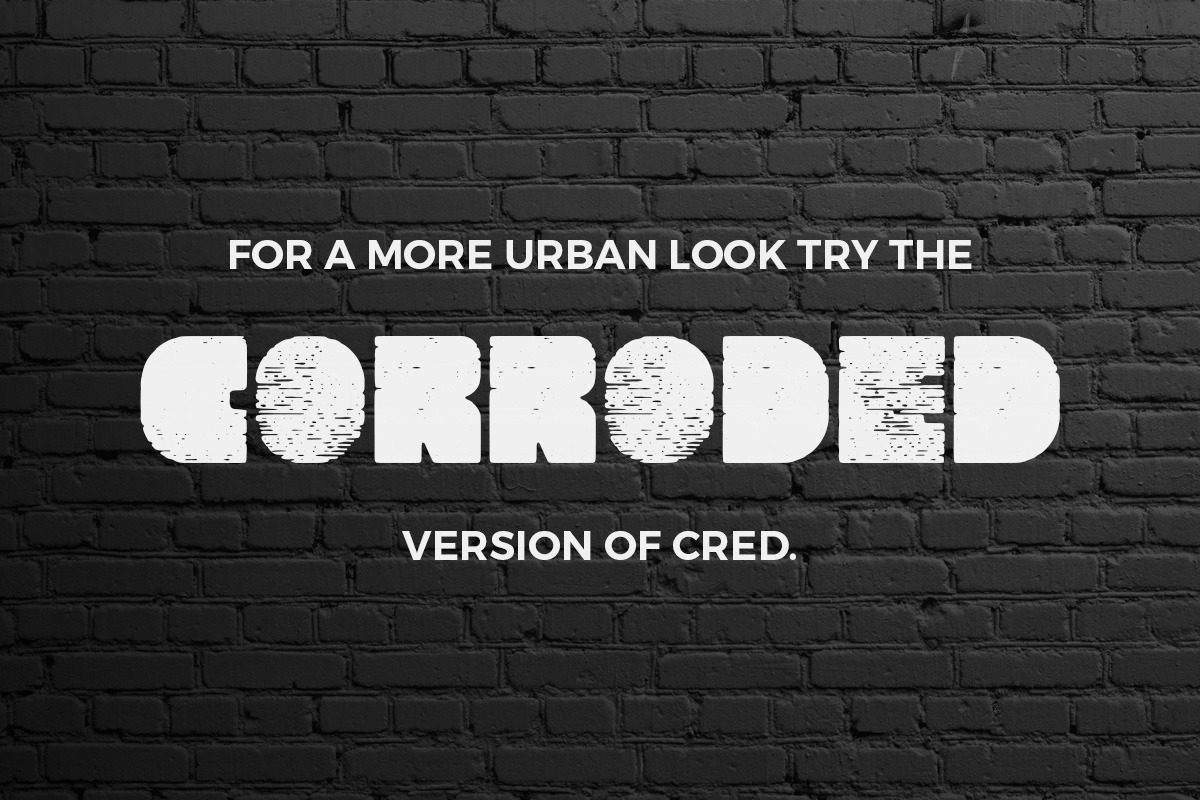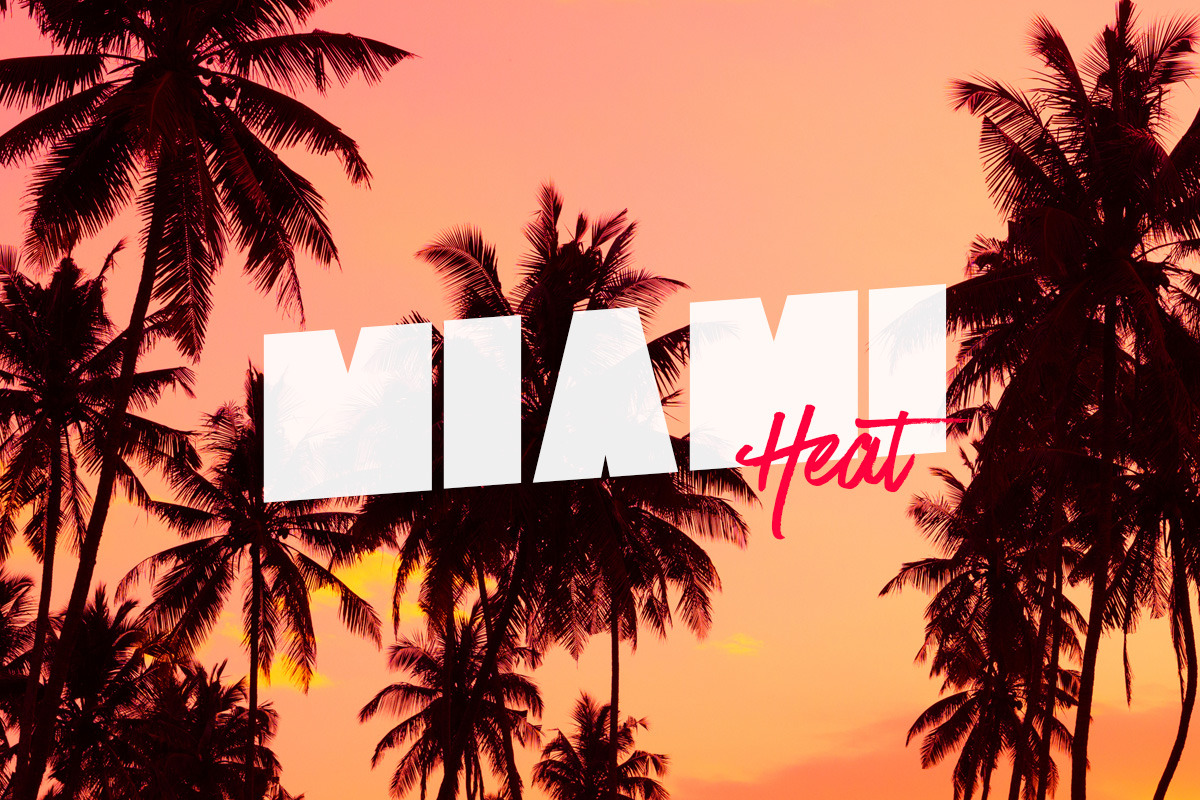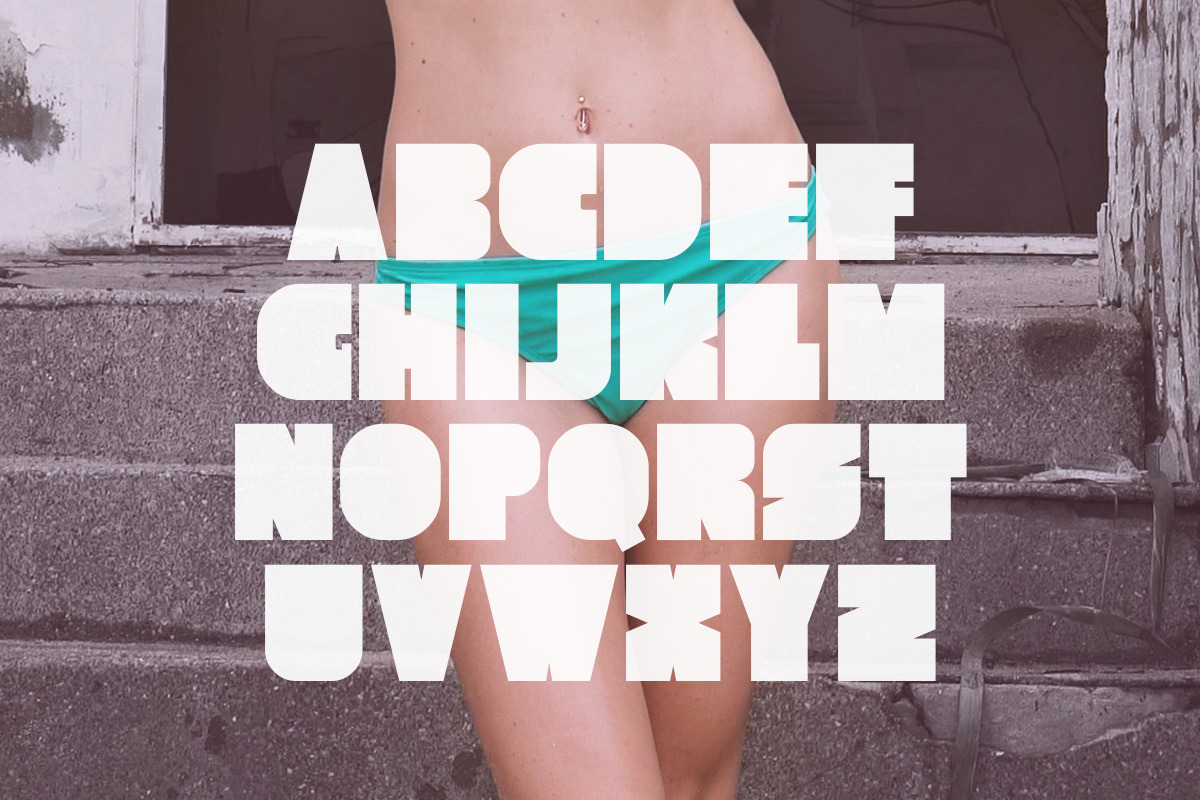
Cred Typeface
Cred Typeface by Tugcu Design Co. is a font selected for branding, posters, packaging, typography.
- Cred is a unique fat typeface that includes multilingual uppercase letters, numbers and punctuation.
Why Cred Typeface is worth a look
Cred Typeface by Tugcu Design Co. fits naturally into Branding, posters, packaging, typography.